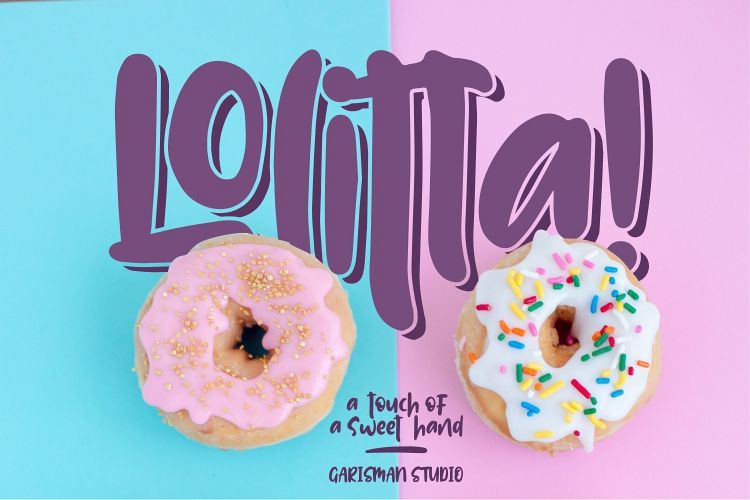
Lolitta
LOLITTA is bold and fun display font. It brings joy and happiness to all of us. Inspired by a bold and fun marker with bold and strong style. This font is ideal for display, text, print, branding, signage, with a set of optimal characters for your design in any layout that will you get.
Having fun with Lolitta!